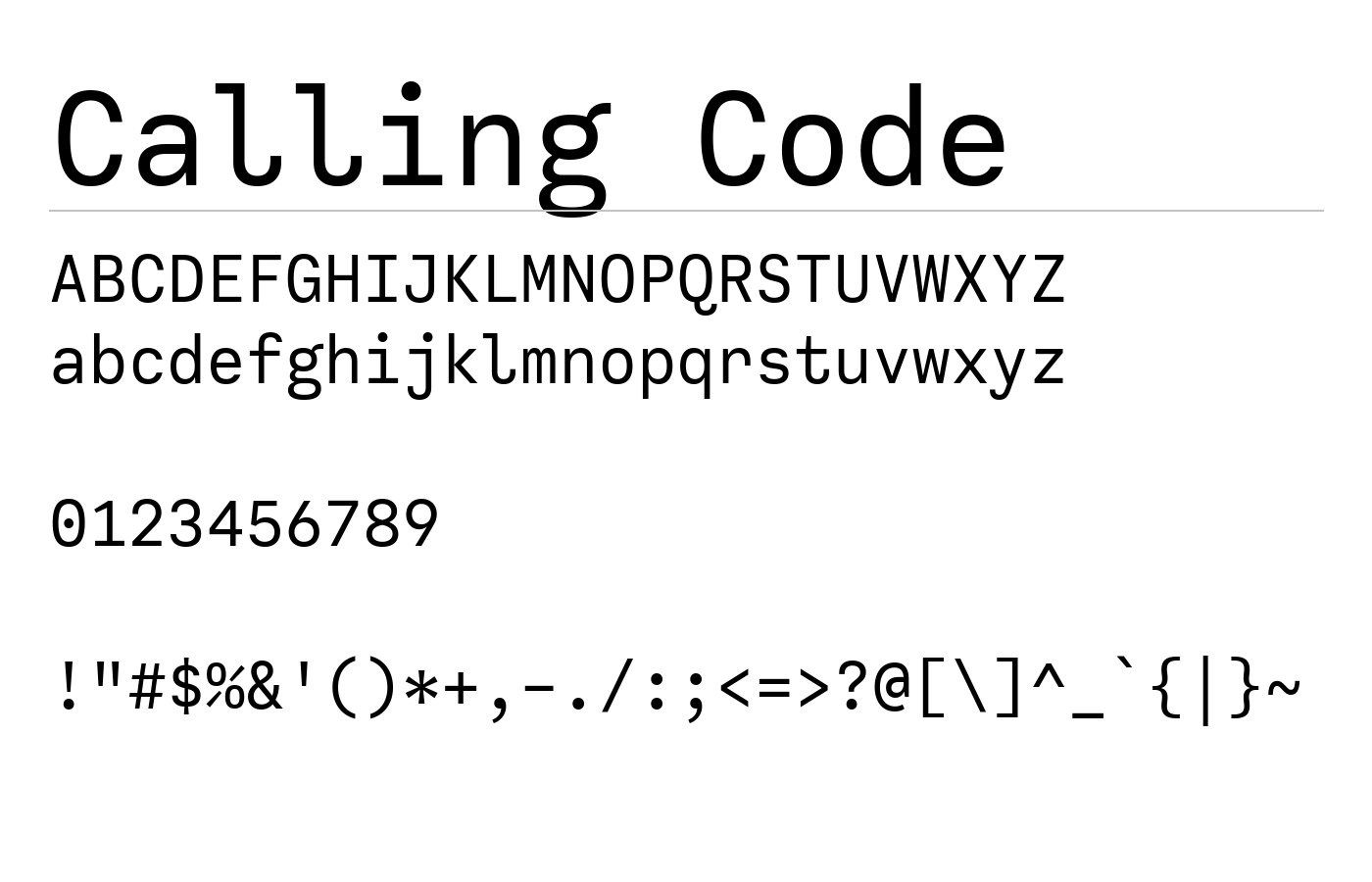
Calling Code Font is a clean, monospaced sans serif typeface with a technical and modern feel, ideal for coding environments and digital applications. Its uniform stroke weight, tall x-height, and restrained geometric shapes provide excellent readability and a straightforward, practical look that suits interfaces, programming-related projects, and minimalist branding. This font’s precise and unfussy design makes it a great choice for users seeking clarity and functionality in both display and text settings.
Calling Code Font
About Calling Code Font